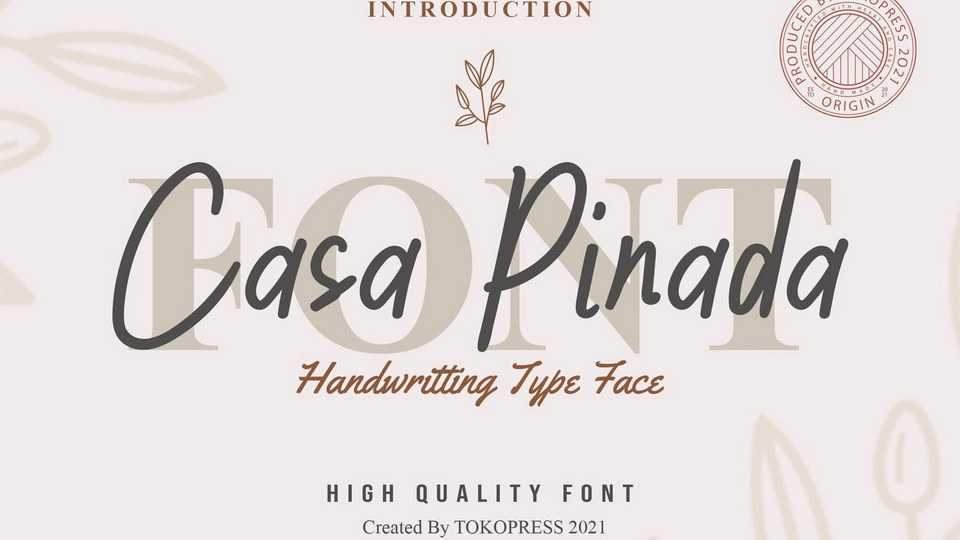
Download Casa Pinada font, a girly fancy handwritten typeface. Light on the feel, elegant on the look. Casa Pinada will bring a feminine touch to the designs you are working at.